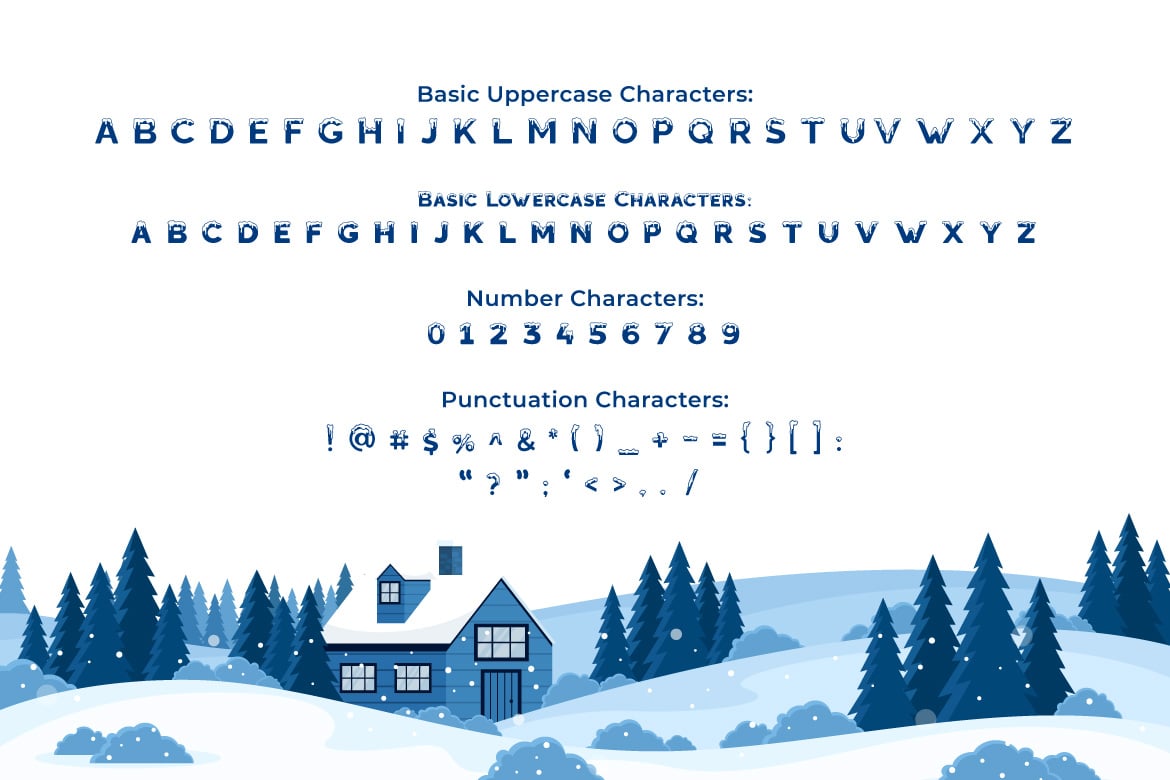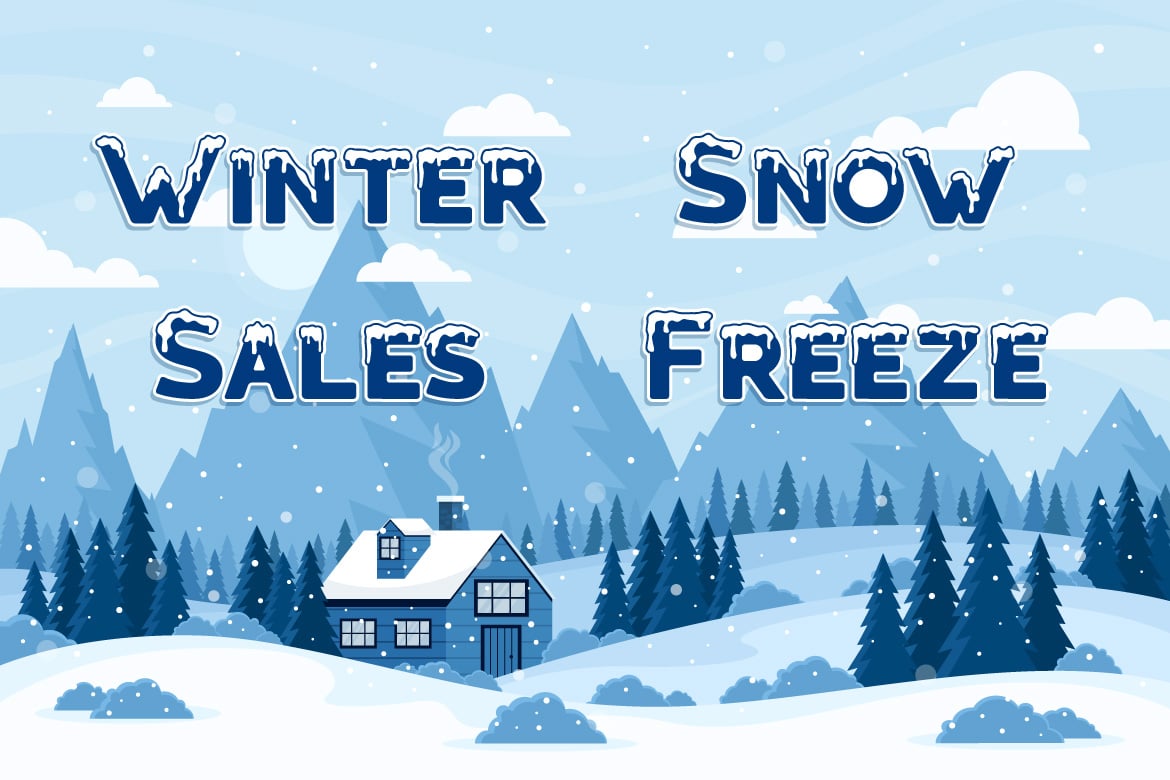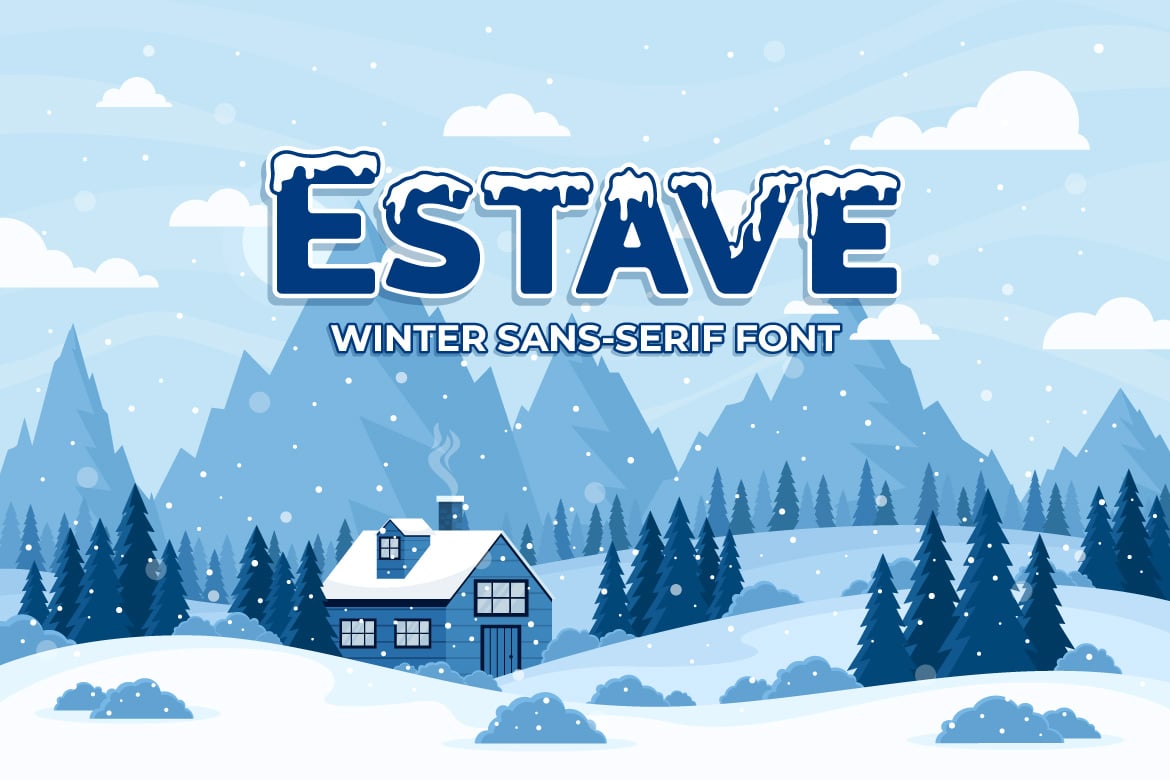
Estave – Winter Sans Serif Font
Brrrr! The snow is cold, the font is cool!
Let me introduce you ESTAVE, a cool winter font. This font is suitable in winter session, but you can use it whenever for comic, children book, flyer, poster, book cover, card, merchandise, etc. This font has lowercase and uppercase style. Try this font and feel the coolness inside the word 🙂